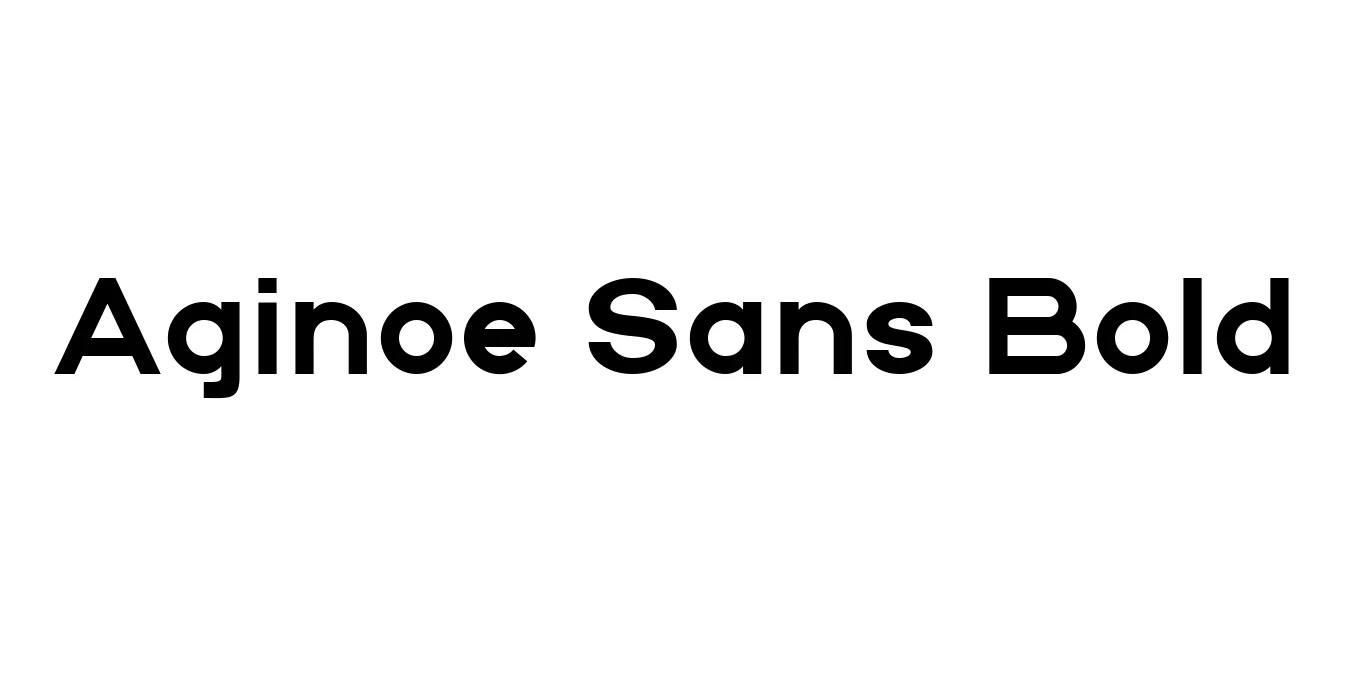
Aginoe Sans Bold
Designed by Twinletter
Aginoe Sans Bold is a modern and sophisticated sans-serif typeface meticulously crafted by the designers at Twinletter. It features clean, architectural lines and a robust, bold structure that commands attention, making it an excellent choice for contemporary branding and high-end visual identities. The bold weight specifically emphasizes strength and clarity, ensuring maximum readability across both high-resolution digital screens and physical print mediums.
This font was engineered to bridge the gap between geometric minimalism and functional elegance. Its balanced proportions and distinctive character shapes allow it to function perfectly in high-impact scenarios where visual hierarchy is paramount. Whether utilized for large-scale outdoor displays or professional editorial layouts, Aginoe Sans Bold maintains a professional yet approachable aesthetic that suits the needs of modern graphic designers and art directors worldwide.
Aginoe Sans Bold Best Uses
Ideal for creating strong and memorable logos for tech and creative startups.
Perfect for high-impact titles in magazines, posters, and newspapers.
Great for bold graphic quotes and eye-catching Instagram post headers.
Excellent for hero sections and navigation menus requiring high visibility.